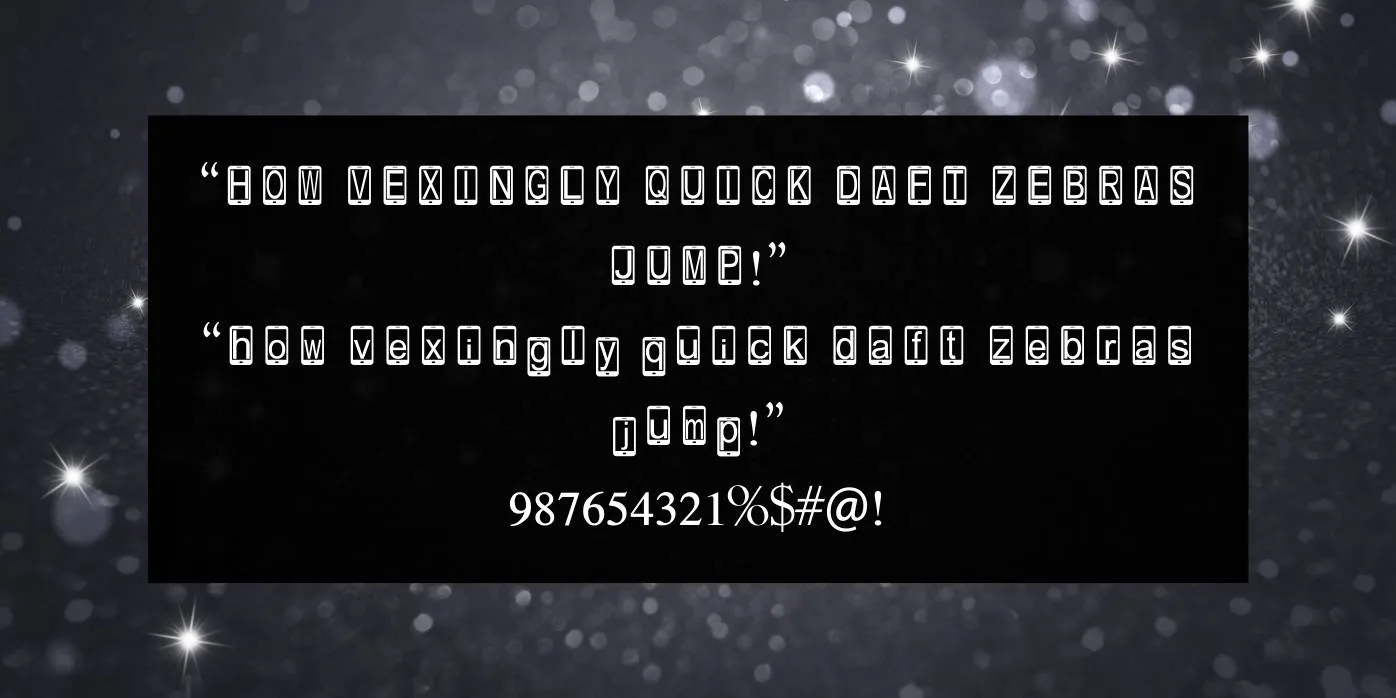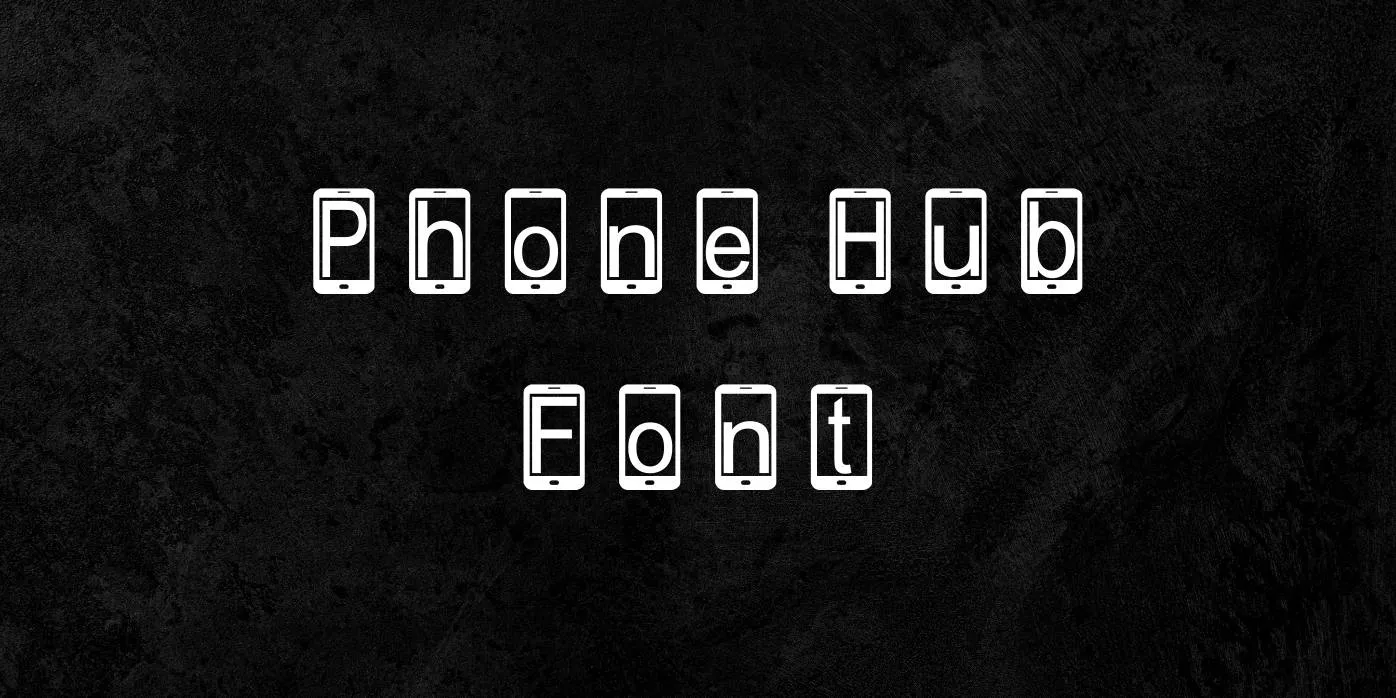
Phone Hub Font
Phone Hub is a unique font Its characters are designed in very different styles which makes it look different from other fonts. It was designed by Anton Cruz and manufactured by Type Associates. You can use this font to make many amazing projects. It was inspired by the font which was used on the dial button in 1965.
You can use this font by pairing it with other fonts nagro font so you can give a more attractive and amazing look to your projects. Usage It is a very interesting and unique font you can use it for different projects it has small letters, capital letters, numbers, special characters, and punctuations. This font can be utilized for making all types of social media posts and advertisements. As compared with other fonts this font is unique.
It can be used in making website designs and graphic design. By using different graphic applications like Adobe Photoshop, CSS, and Canva. It is also good for branding and product designs. It is good for both print and digital media.
This font contains a unique style as its characters are designed for telephone buttons and it has a box-type look around its characters which makes it unique and attractive. Is Phone Hub Font free for commercial use? You can make only personal projects free by using this font but if you want to use this font for making commercial or business projects you must contact its owner to buy it. Where I can utilize Phone Hub Font?
You can make different projects by using this font such as Logos, branding, product packing, social media posts, website designing, and much more. Who is the designer of Phone Hub Font? Phone Hub font is a unique font designed by Anton Cruz and manufactured by Type Associates. You can make many different designs by using it.